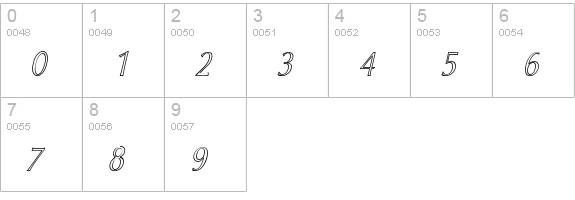
Oxford Hollow Thin Italic is a delicate, low-contrast, italic variant in the Oxford typeface family \xE2\x80\x94 well suited to fashion editorial, minimal branding, and high-contrast display.
Oxford Hollow Thin Italic font is a sleek and elegant typeface that combines modern aesthetics with a touch of sophistication. Its thin, italic style gives a unique and contemporary look to any design project. The delicate curves and precise lines of this font make it perfect for adding a touch of class to logos, invitations, posters, and more. Best of all, Oxford Hollow Thin Italic font is available for free download at FontsMarket.com. This means that you can easily access this stylish font and use it in your creative projects without any cost. Don't miss out on the opportunity to enhance your designs with the beauty and grace of Oxford Hollow Thin Italic font. Download it today and elevate your typography game to the next level!